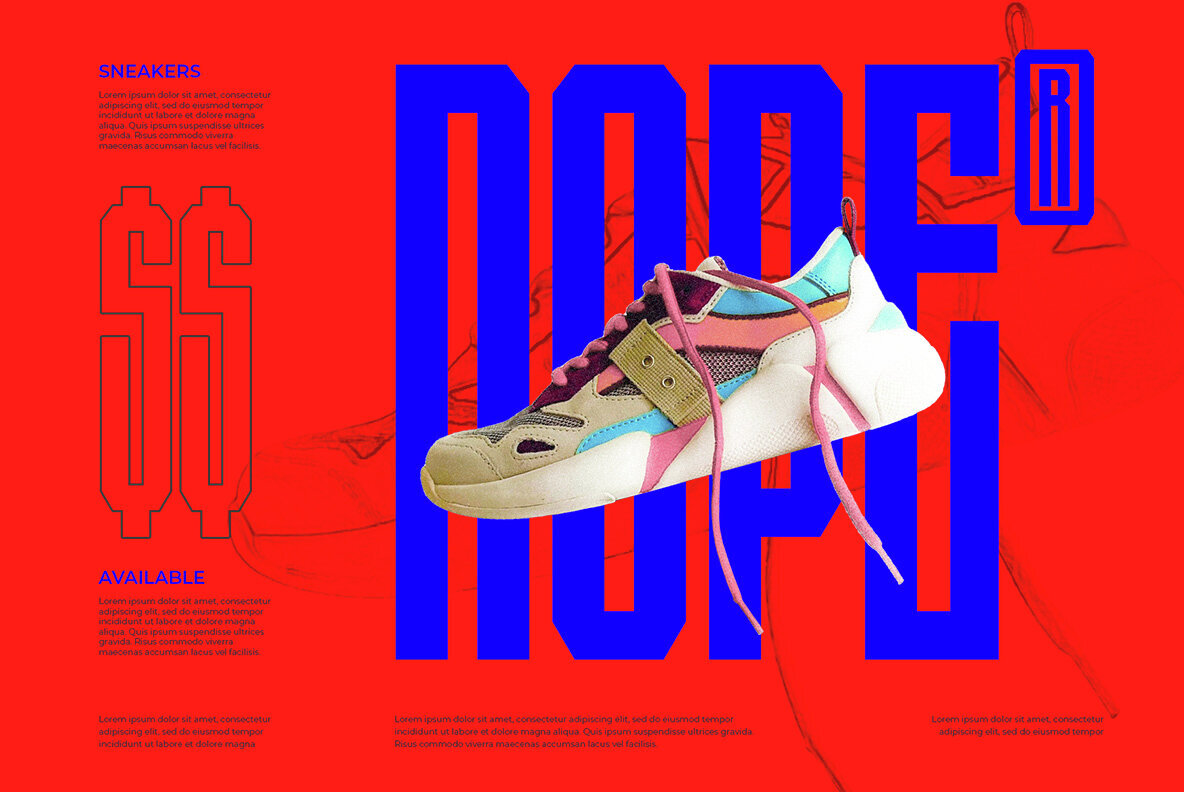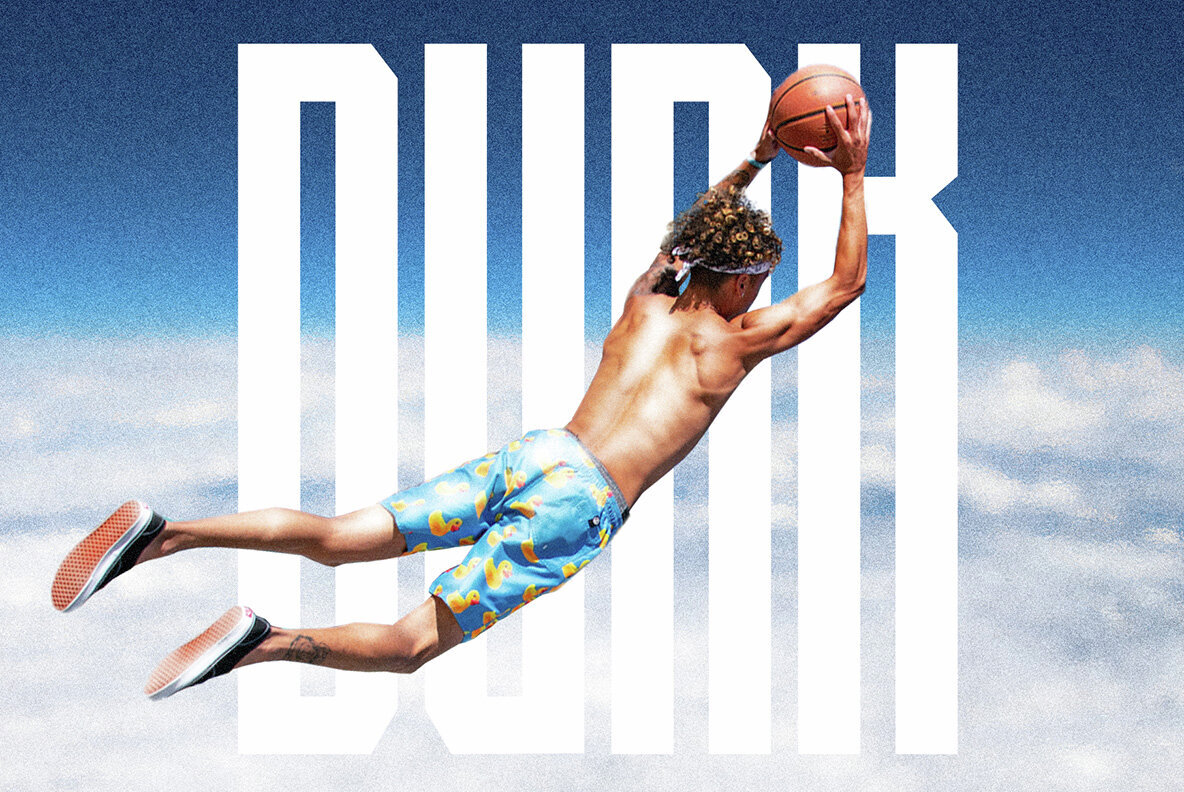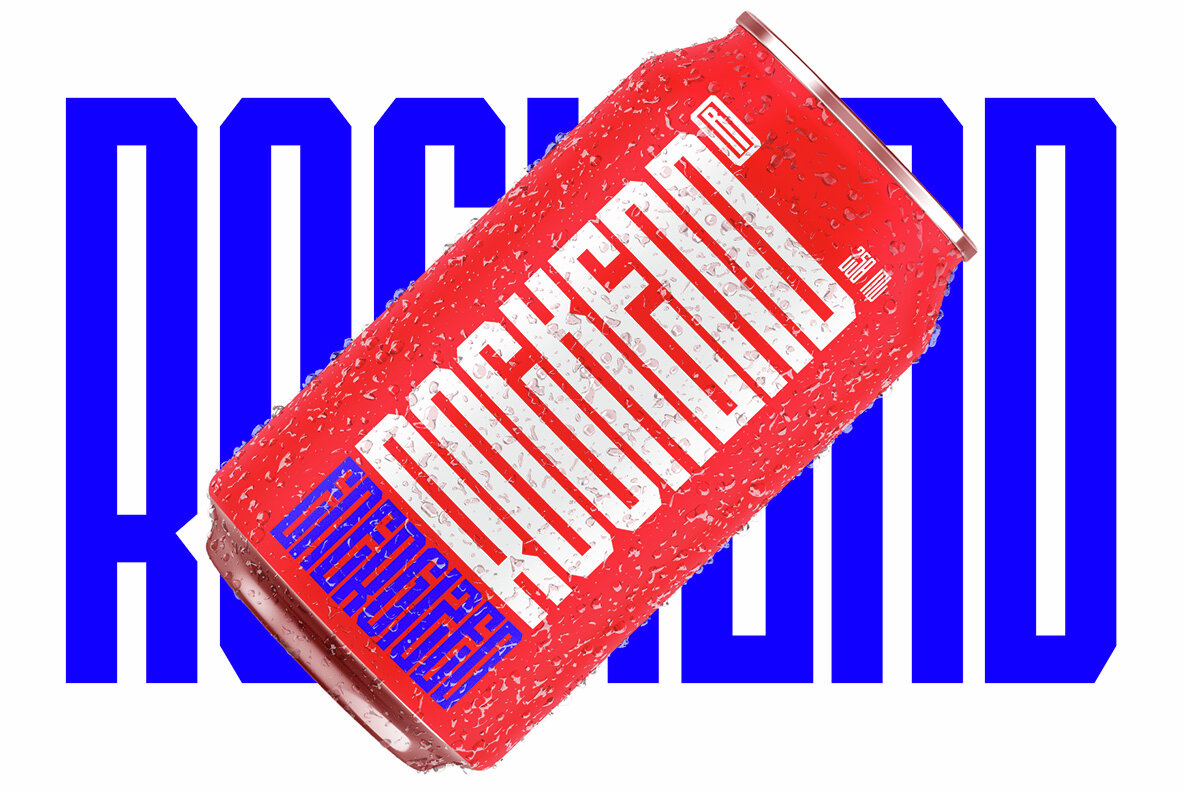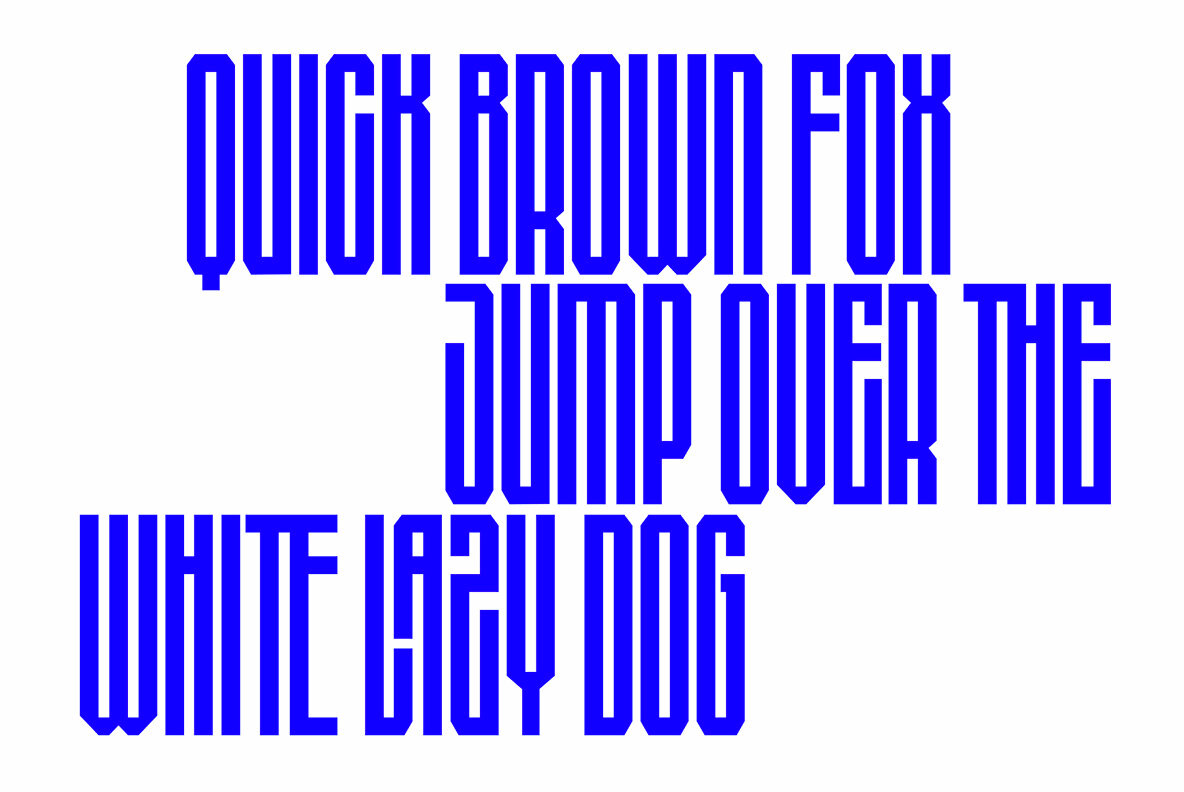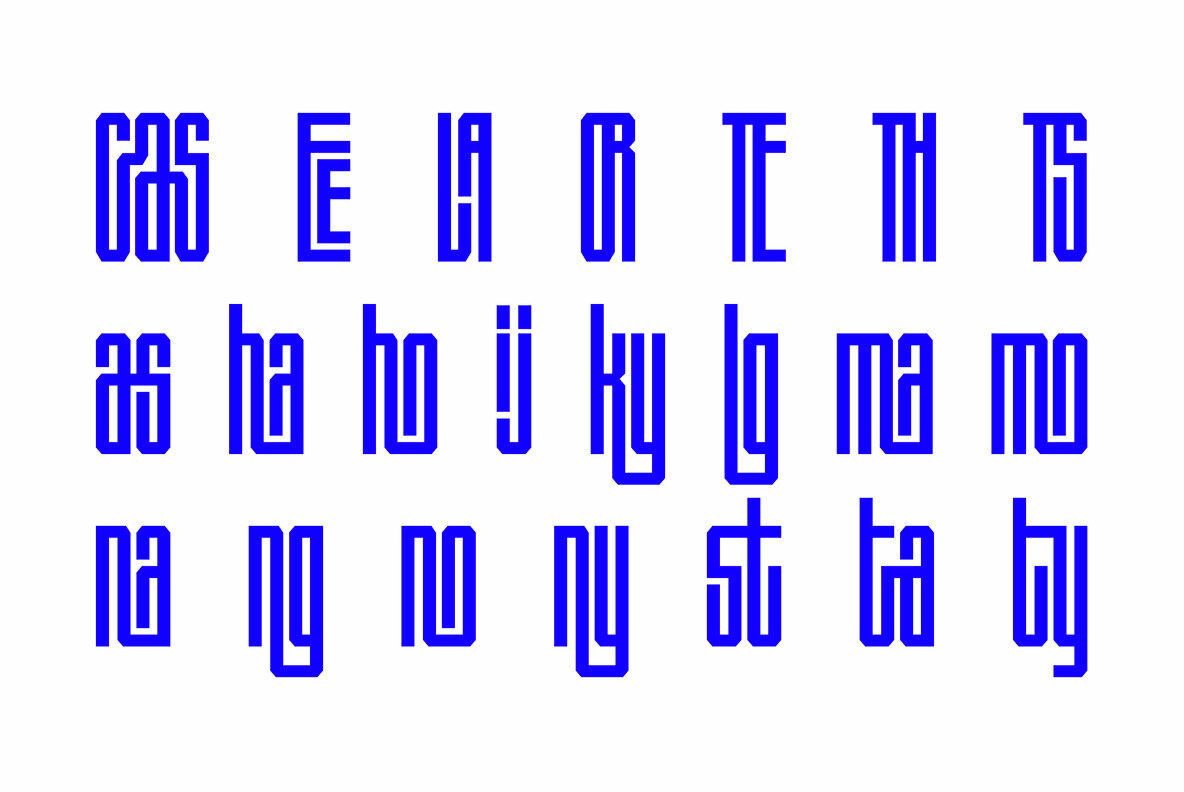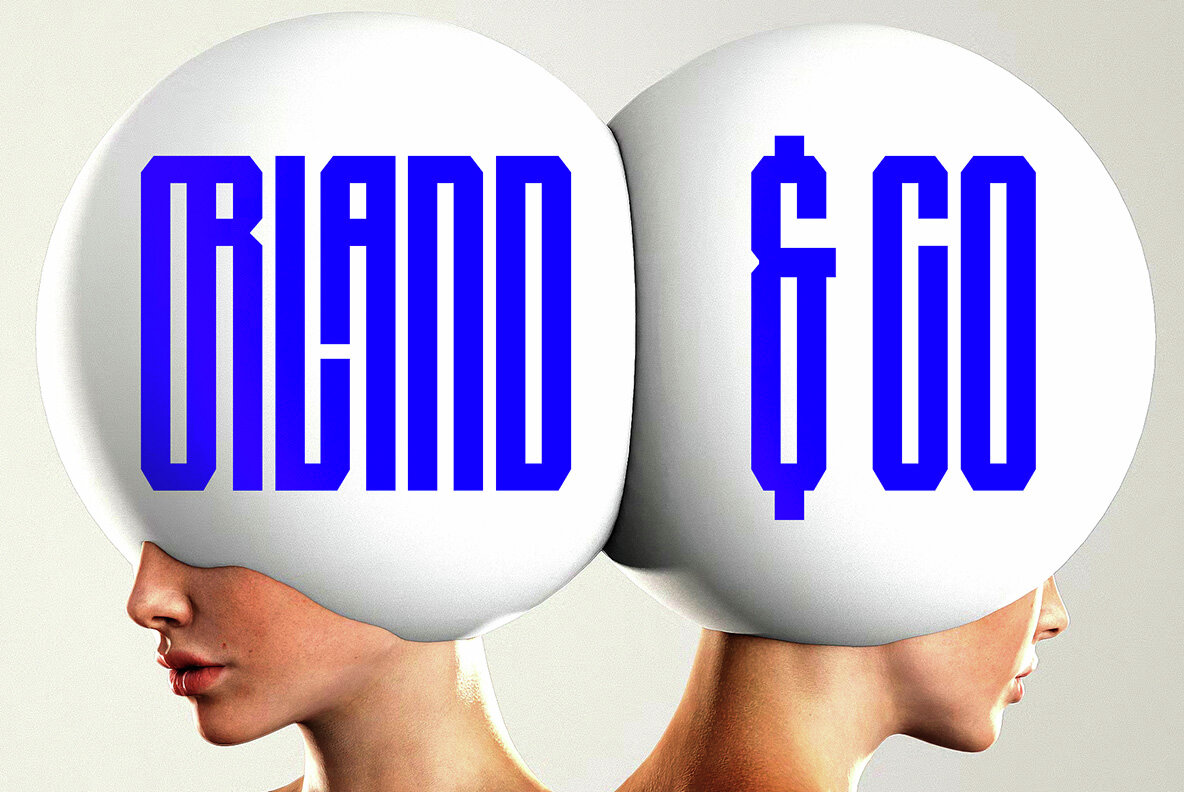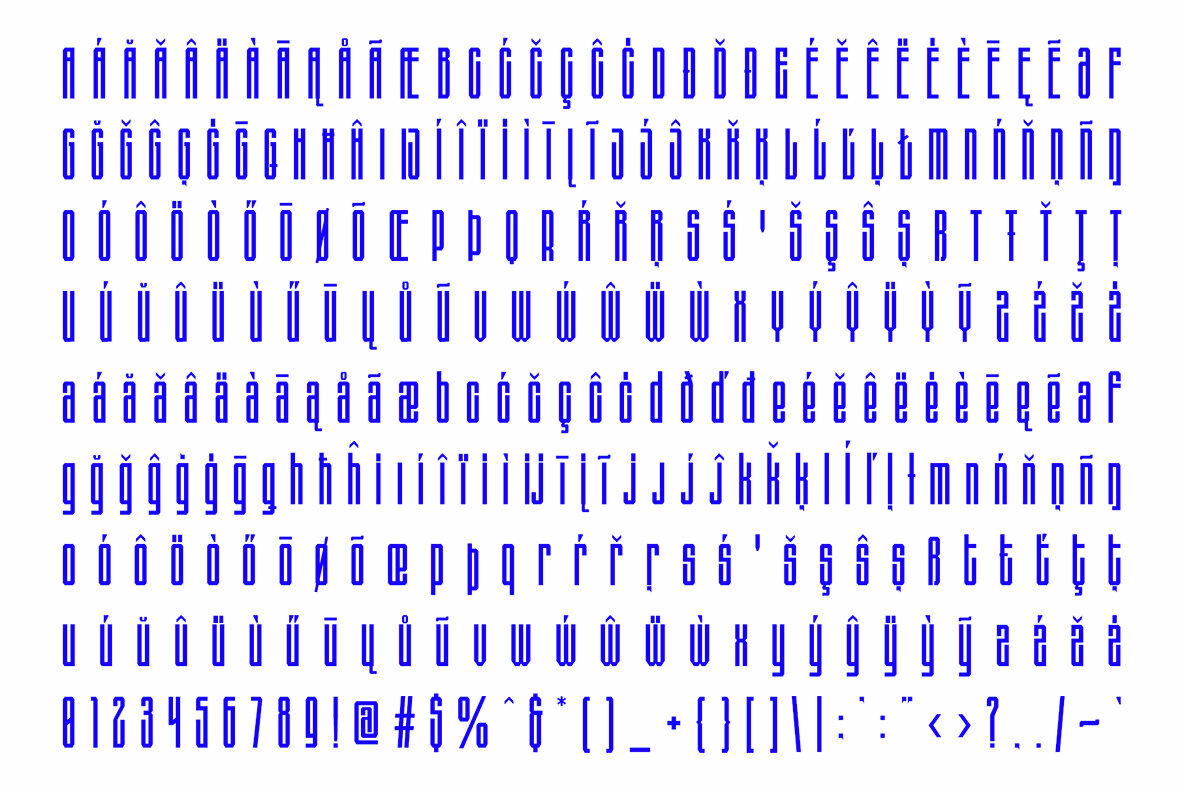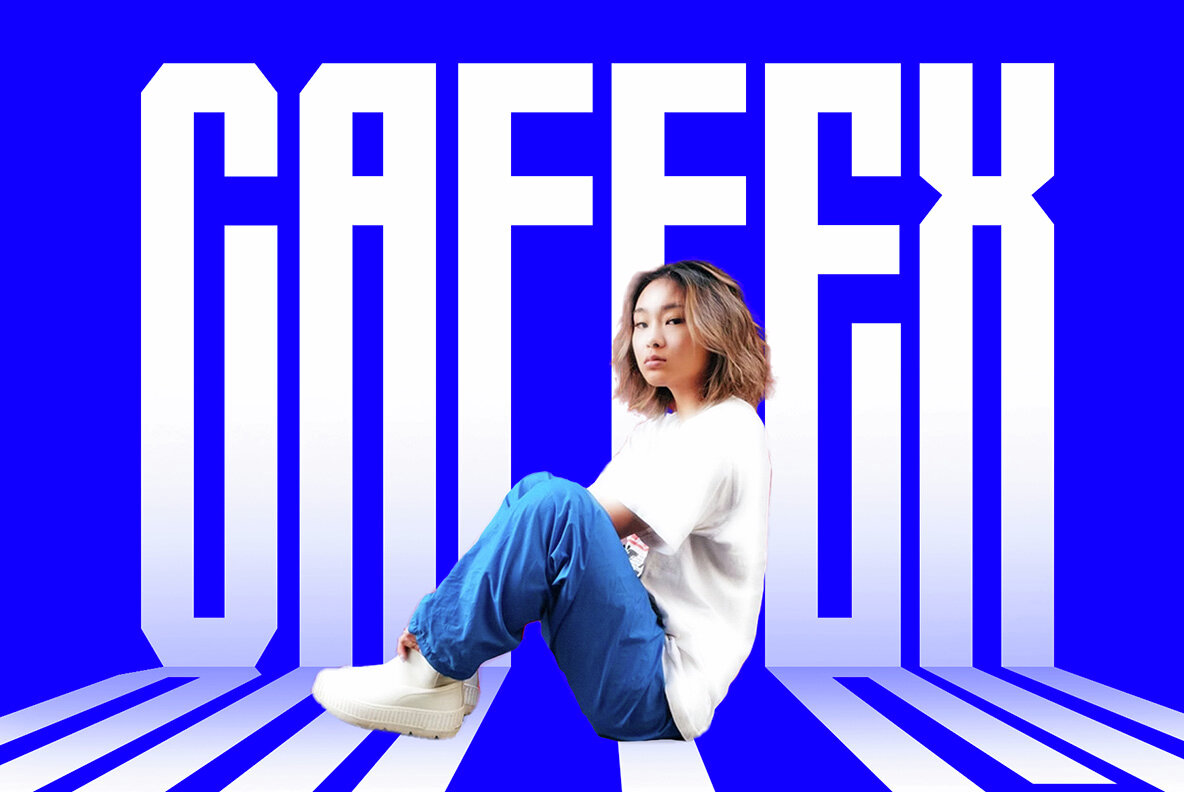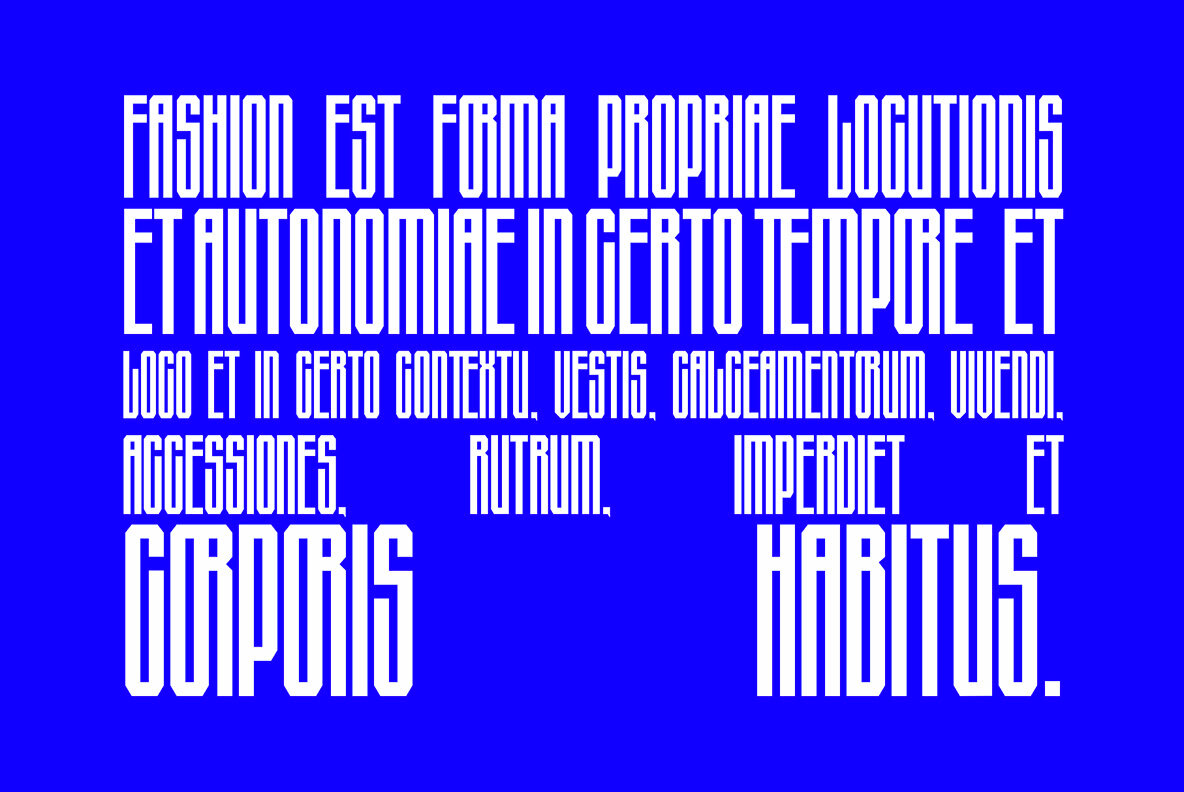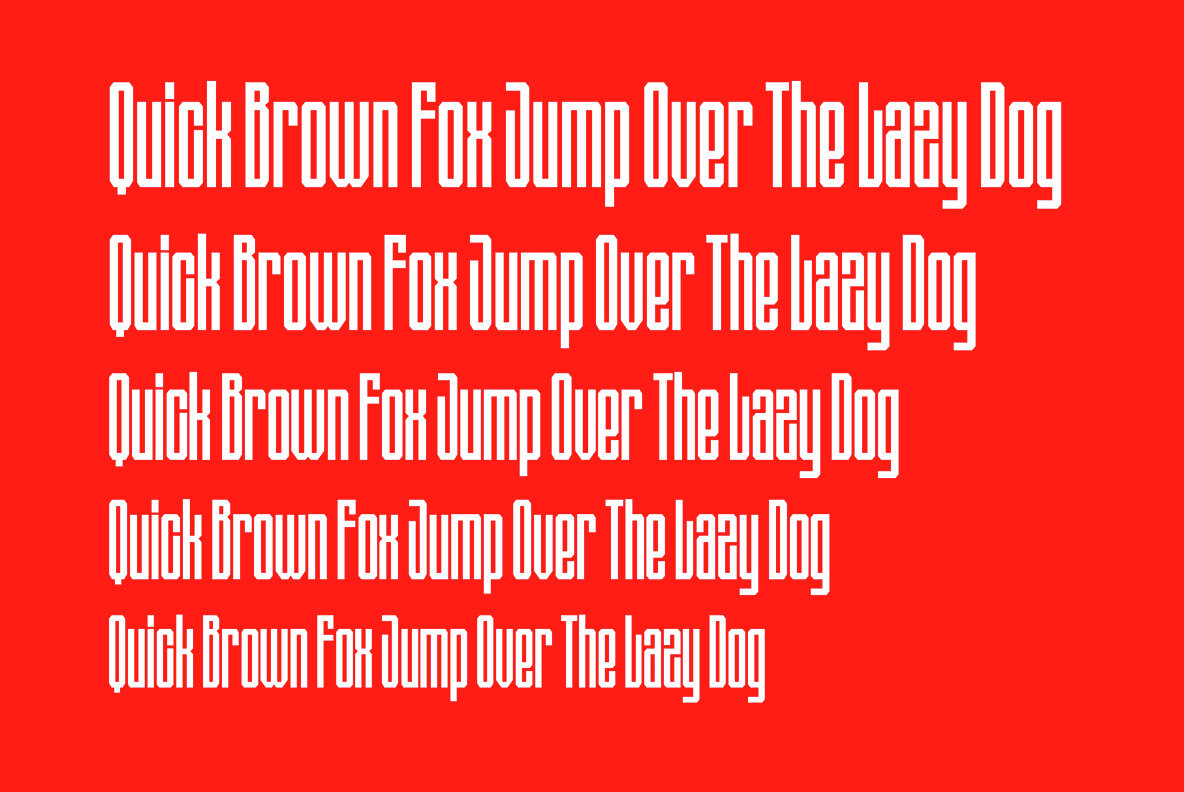
Cas Layeermax Font
CAS LAYEERMAX Regular
This typeface is a bold, geometric sans-serif with a strong modernist influence, characterized by its clean lines and crisp edges. It embodies a minimalist and industrial aesthetic, which makes it well-suited for high-impact headlines, branding, and contemporary design work. Its monoline weight and uniformity give it a sleek, unified look, while the wide, blocky letters create a commanding presence on the page.